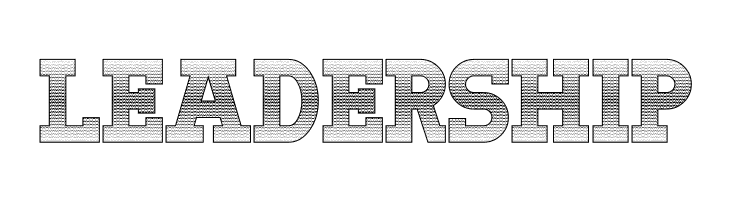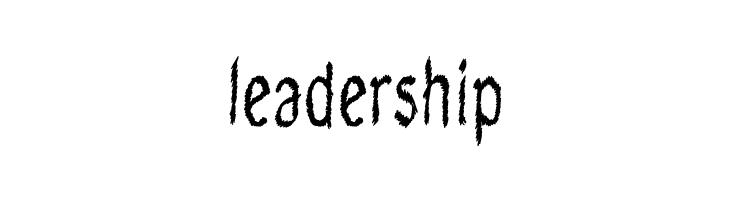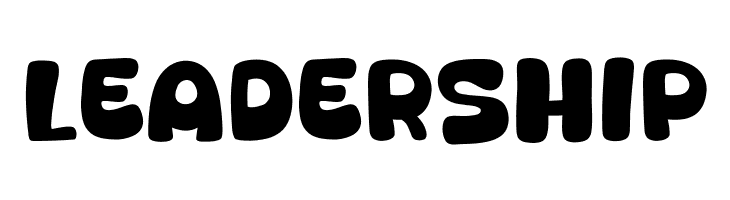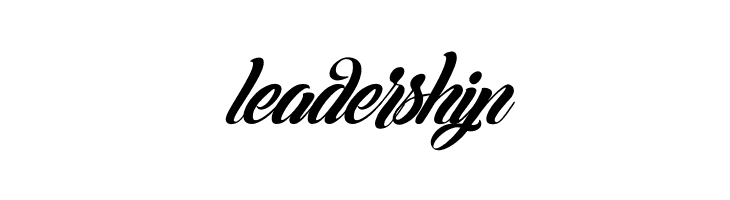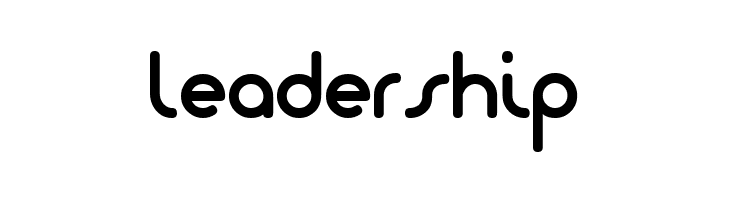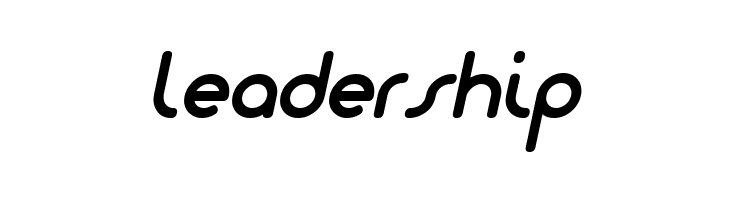
A bold, futuristic font with a three-dimensional shadow effect.
A sleek, italicized font with a futuristic and dynamic design.
A futuristic, geometric font with bold, angular letterforms.
A sleek, modern italic font with a futuristic and dynamic style.
Bold, uppercase letters with shadow effects in circular shapes, offering a vintage and decorative style.
A bold, playful font with rounded edges and a retro vibe.
A playful, jagged font with a hand-drawn, doodle-like appearance.
A bold, slab serif font with a vintage yet modern appeal.
A bold, three-dimensional font with a vintage, geometric style.
A bold, decorative font with a unique wave pattern, ideal for impactful designs.
A bold, decorative font with a unique wave pattern, ideal for standout headlines and logos.
A bold, shadowed font with a vintage, impactful style.
A hand-drawn, rustic font with a distressed and organic appearance.
A hand-drawn, rustic font with irregular strokes and a playful, edgy aesthetic.
A playful, outlined font with a hand-drawn, comic-like style.
A bold, graffiti-style font with a rough, hand-painted look.
A playful font filled with dog paw prints, perfect for fun and pet-themed projects.
Dog silhouettes in various poses and breeds.
A playful, bold font with rounded, bubbly characters ideal for fun projects.
A playful, bubbly font with a hand-drawn, comic-like style.
A bold, italicized font with a distressed, brush-like appearance.
A bold, playful font with rounded, hand-drawn characters.
A bold, oblique font with a dynamic and modern style.
A bold, geometric font with rounded edges and a modern aesthetic.
A decorative font with playful dog illustrations replacing traditional characters.
A dynamic, brush-style font with bold, expressive strokes.
A playful handwritten font with rounded edges and a casual style.
A playful, hand-drawn font with rounded, informal characters.
Cartoon dog illustrations replace letters and numbers in a decorative, playful style.
Dog-themed dingbat font with detailed canine illustrations.